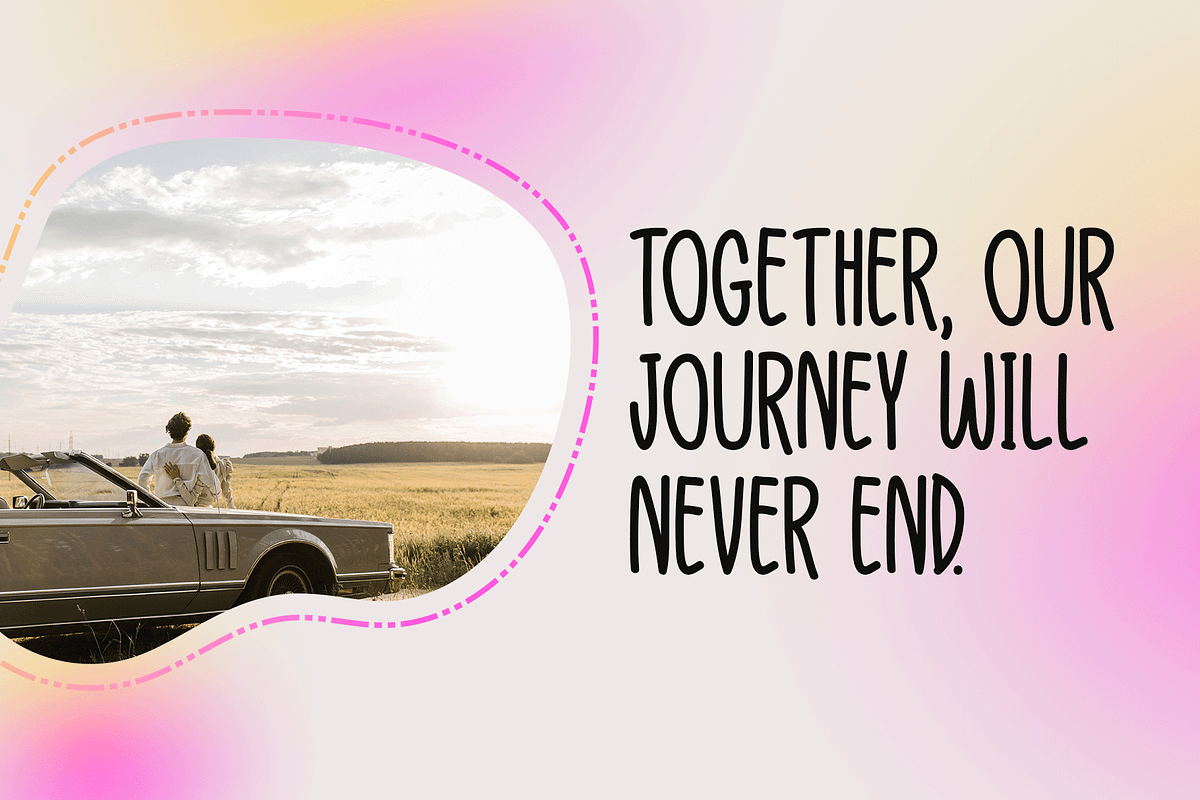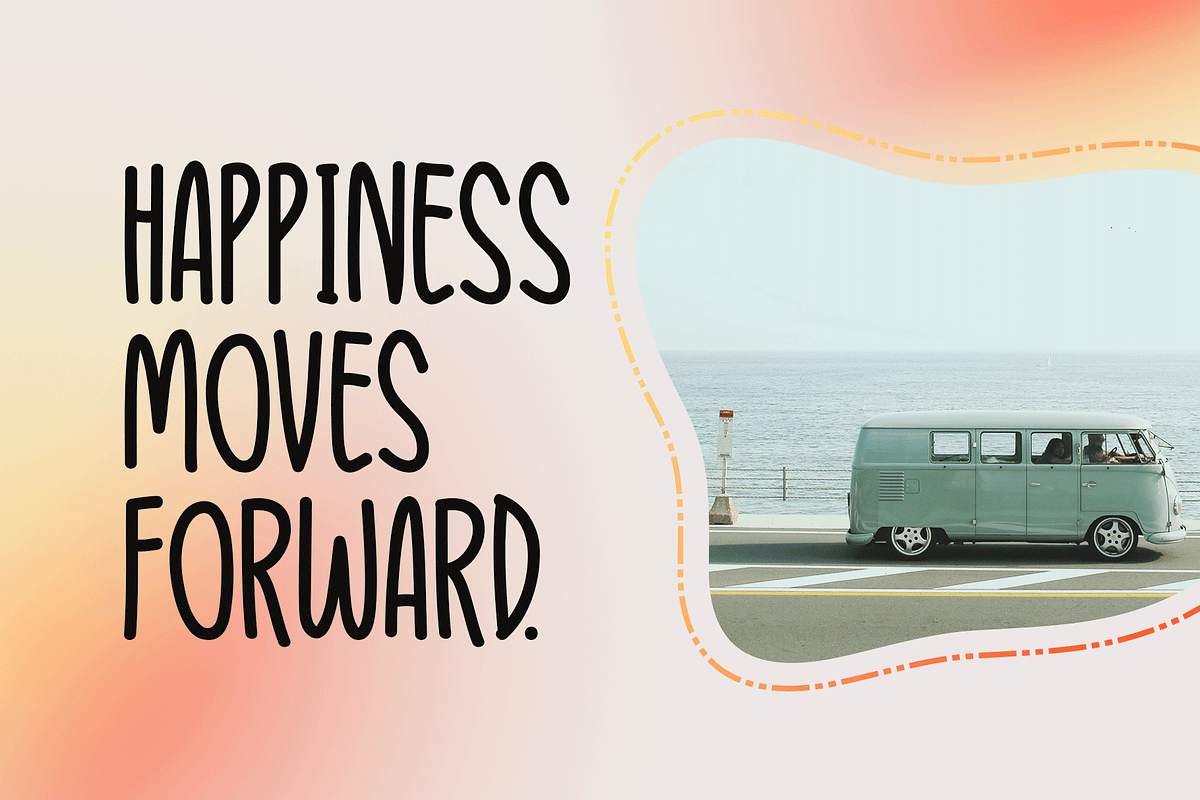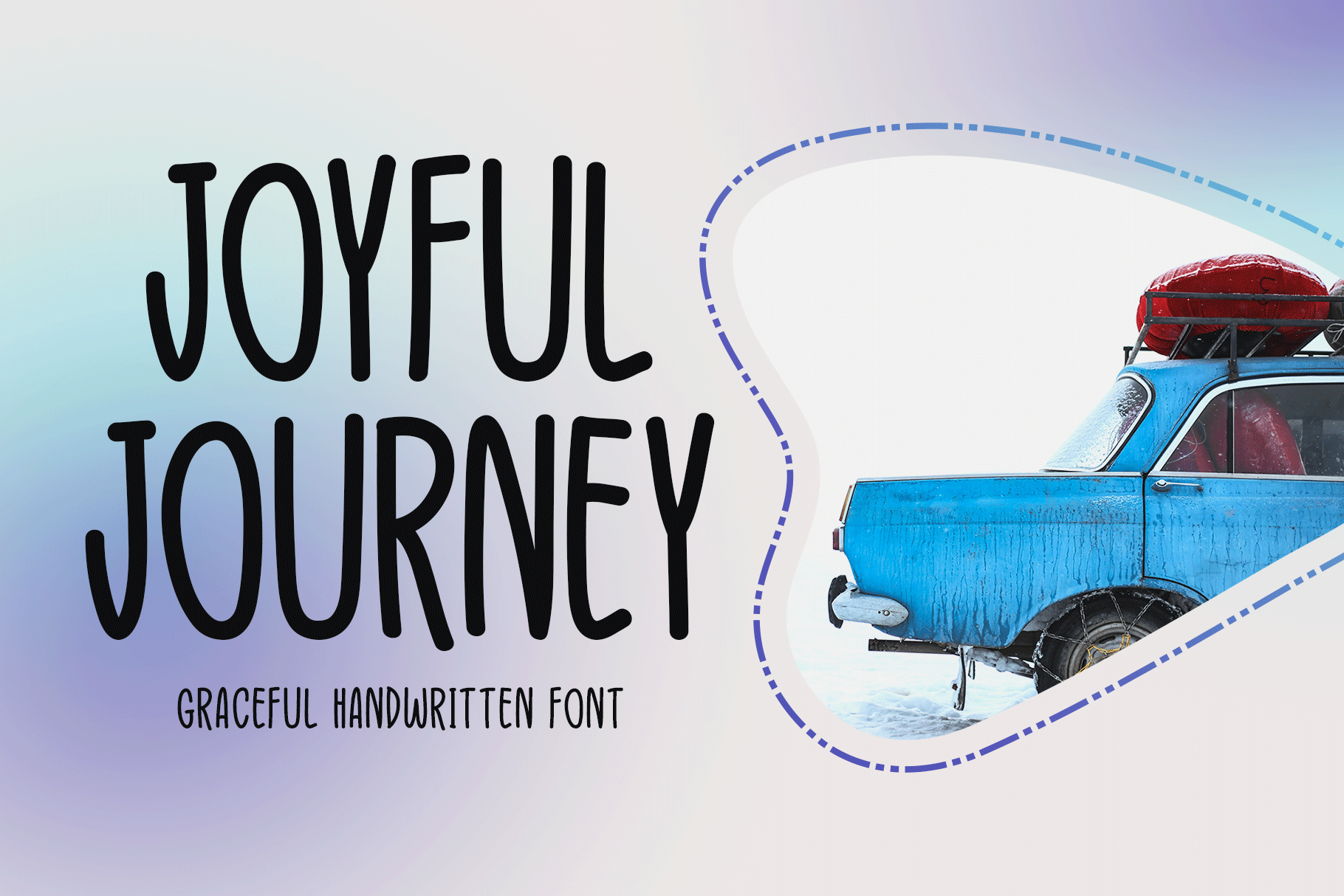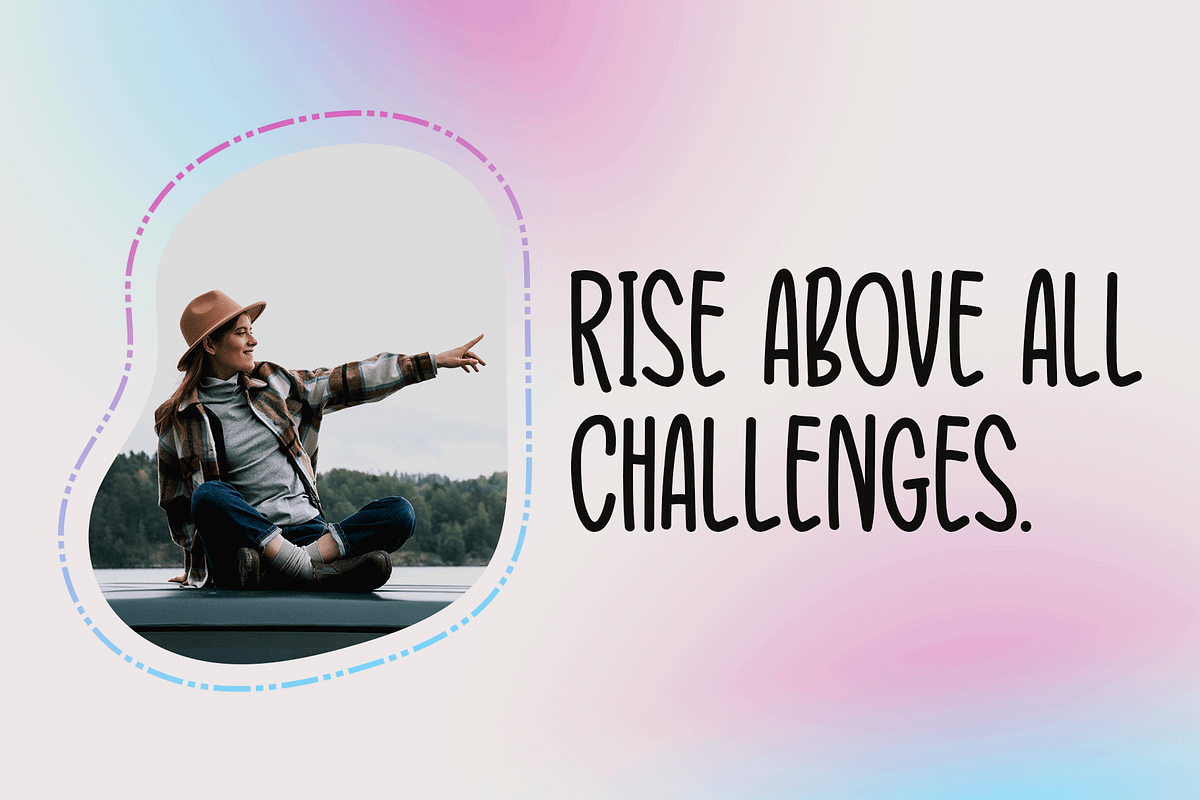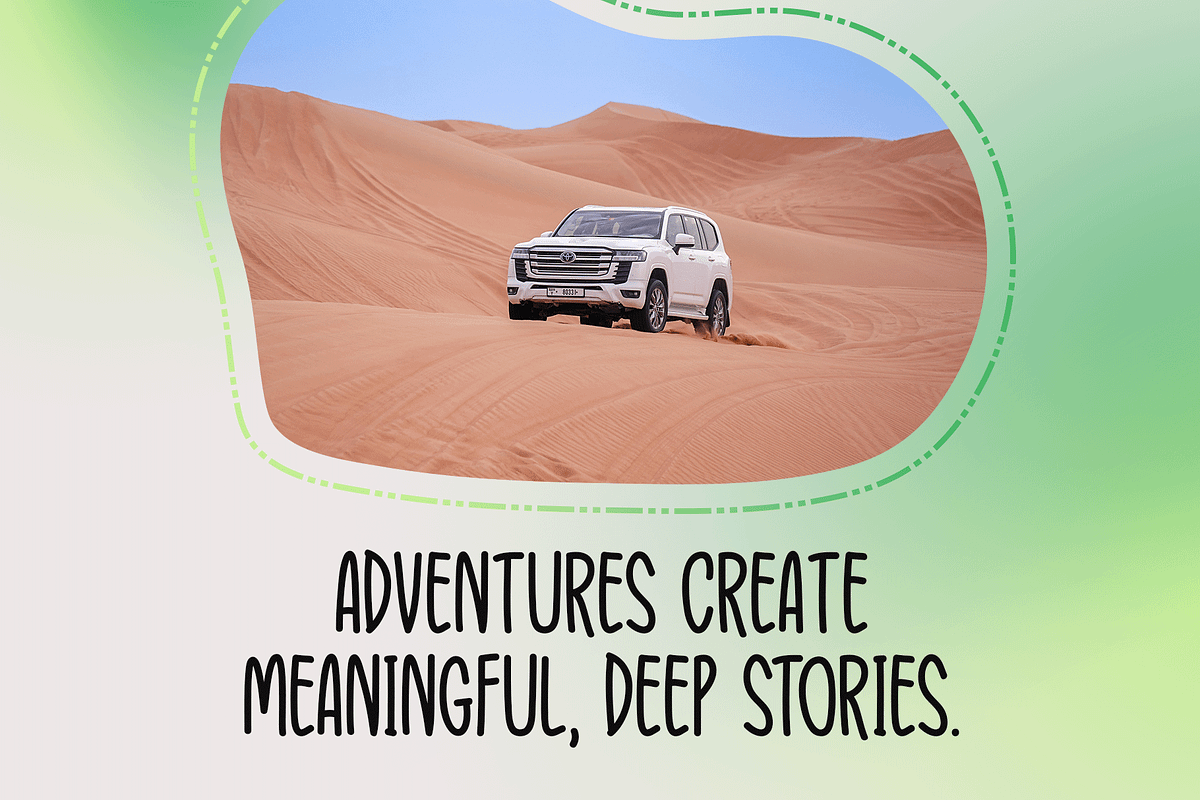
Joyful Journey Typeface
Introducing Joyful Journey!
Joyful Journey is an elegant and beautifully crafted handwritten font that adds a touch of sophistication to any design. Whether you’re working on stationery, logos, t-shirts, or print materials like posters and flyers, this font brings warmth and personality to your creations. Its graceful strokes make it perfect for website headers, music covers, image sliders, and photo frames, ensuring a stylish and polished look across all mediums.